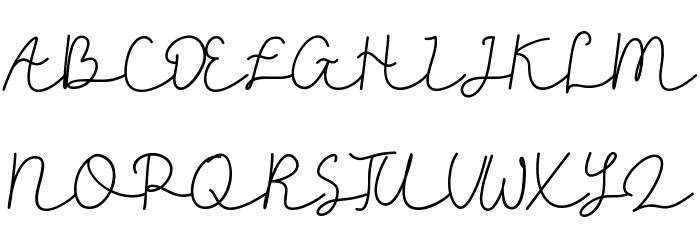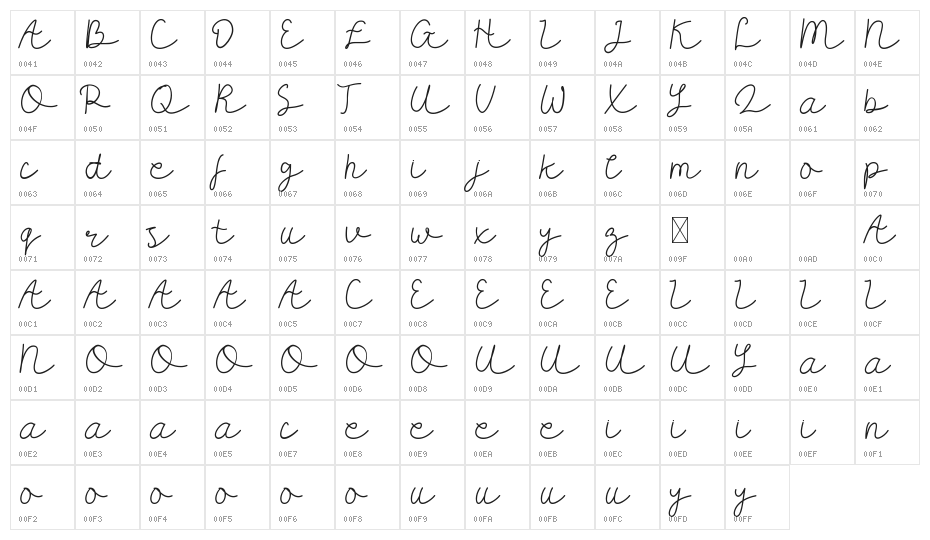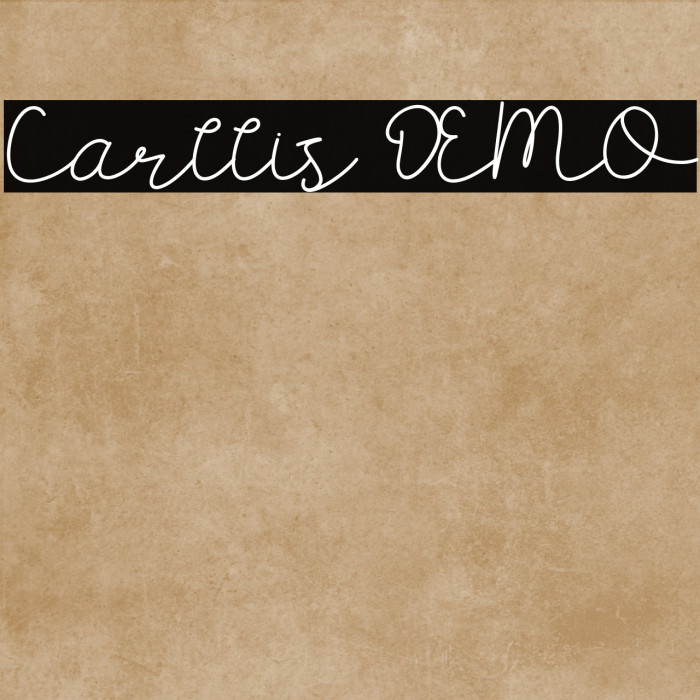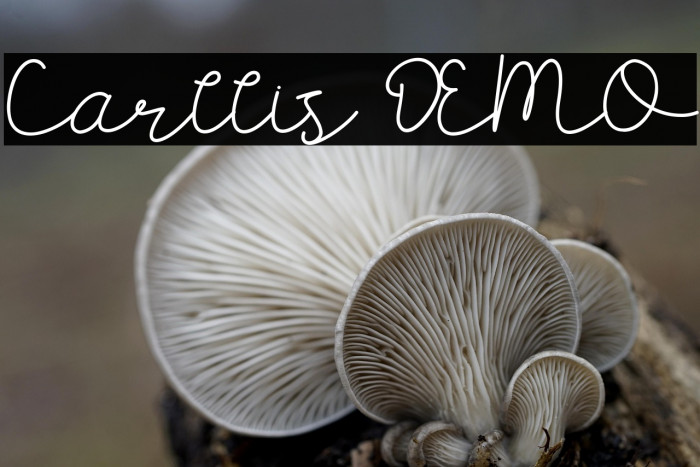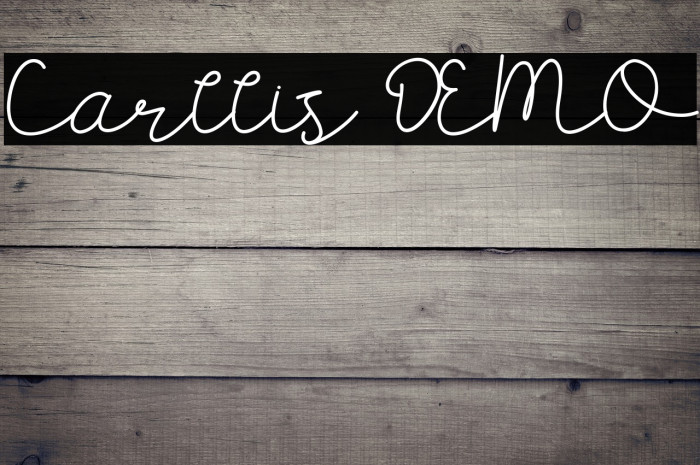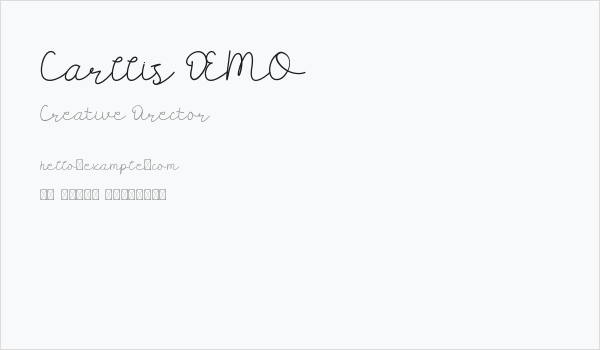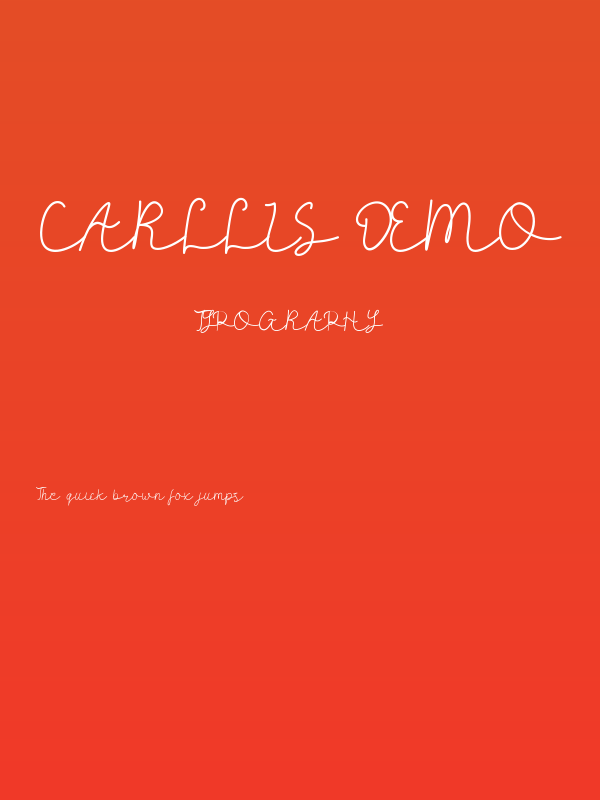
Carllis DEMO Font
Carllis DEMO Description
This font exudes a charming handwritten style, characterized by its fluid and continuous strokes that mimic natural handwriting. The letters are elegantly connected, providing a seamless flow that enhances its cursive appeal. The uppercase letters maintain a consistent height, while the lowercase letters vary slightly, adding a touch of authenticity and personal flair. The strokes are moderately thick, ensuring readability while preserving the delicate nature of the script. This font's playful yet sophisticated style makes it suitable for a variety of creative projects.
Use CaseLogos, Invitations, Artistic projects
Proposed ProjectsIdeal for wedding invitations, personal branding, greeting cards, and artistic projects requiring a personal touch.